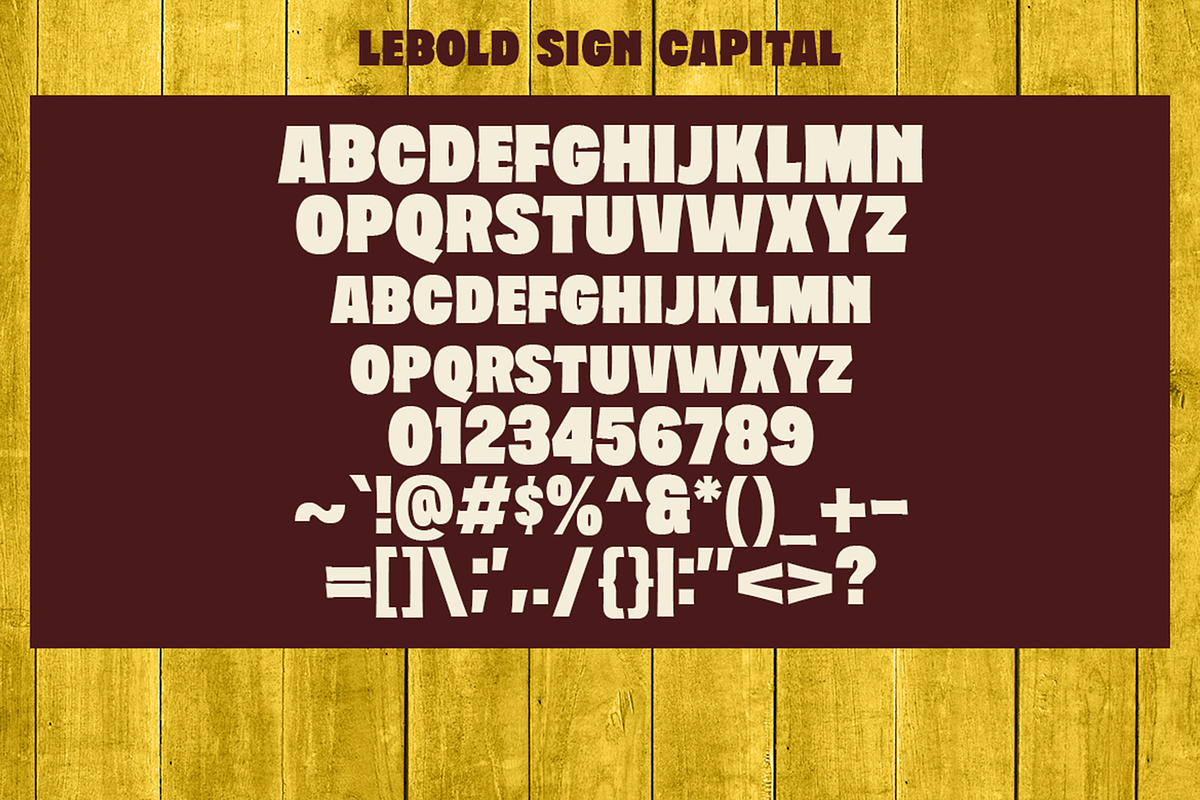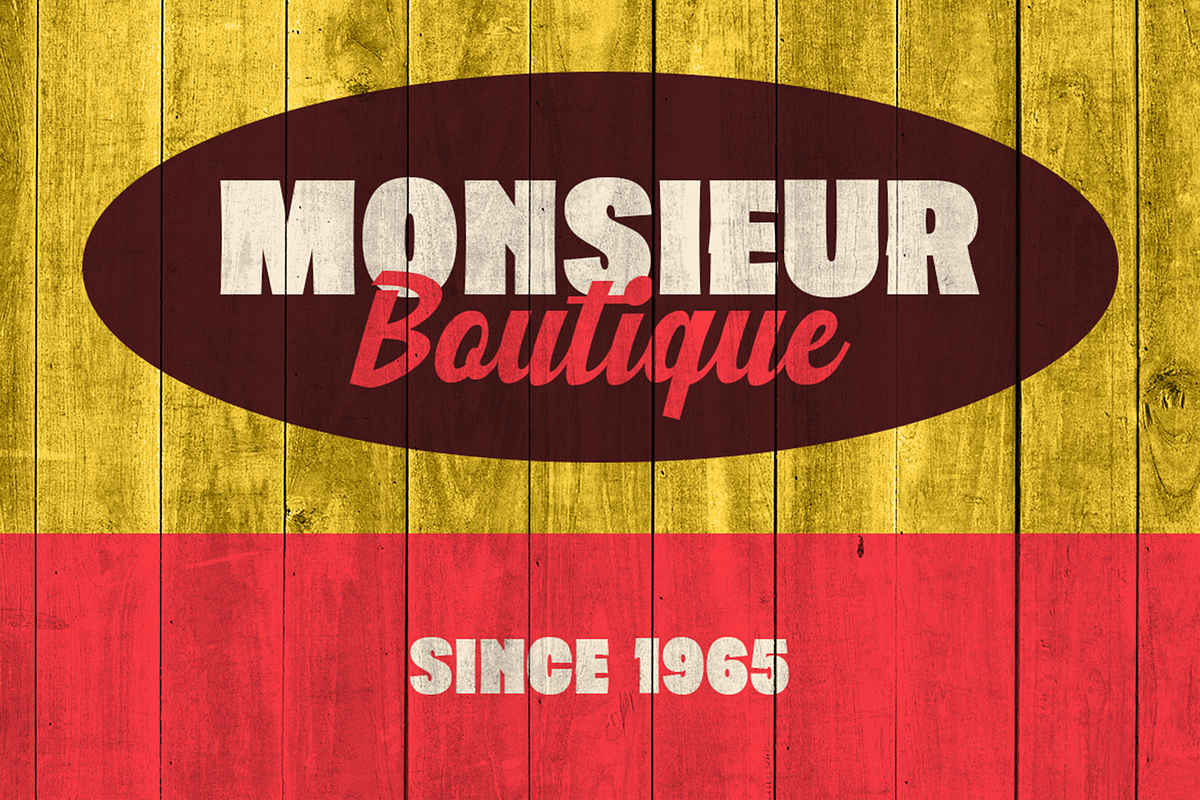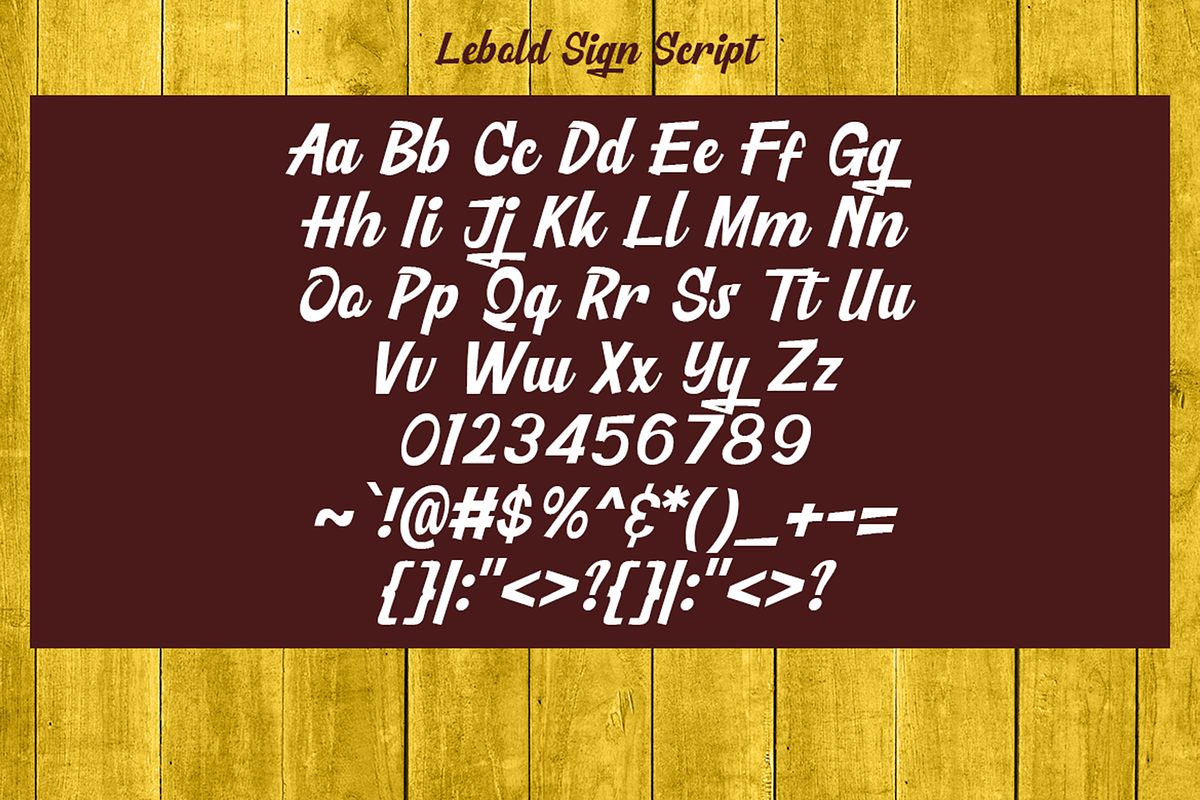
Lebold Sign - Vintage Sign Fonts
Introducing Lebold Sign – A Bold Revival of Hand-Painted Signage
Step back in time with Lebold Sign, a versatile 2-in-1 font family that brings the vintage sign painting era of the 60s and 70s to your designs. Featuring a Bold Sans Serif and a flowing Script, this font is inspired by the classic storefronts, motel signs, posters, and vibrant advertising that defined a generation.
Every letter in Lebold Sign mimics the bold brushstrokes and handcrafted charm of the past, adding that authentic, hand-painted vibe to your visuals. Perfect for branding, logos, packaging, or any design looking for a touch of vintage flair, Lebold Sign brings timeless craftsmanship to modern creativity.
Bring the retro signage look back to life. Lebold Sign – where bold meets elegance, one stroke at a time.